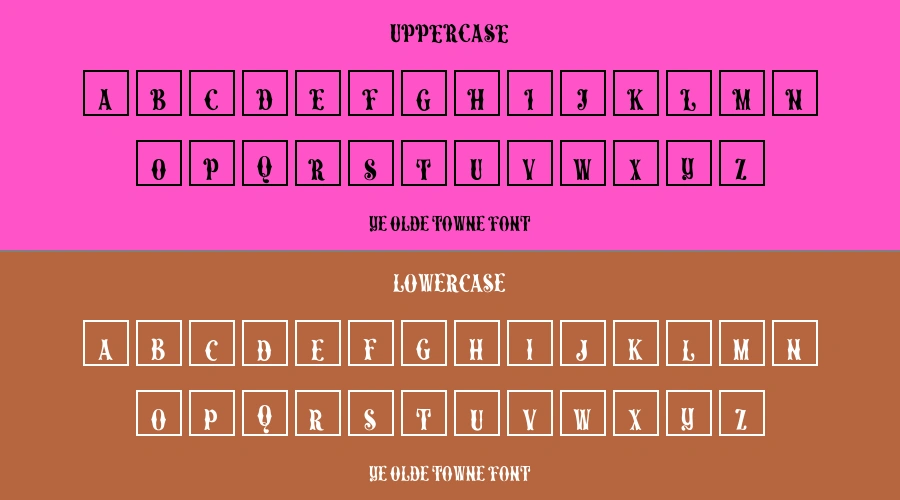
About Ye Olde Towne Font
Ye Olde Towne Normal Font embodies typographic excellence through its masterful combination of calligraphic strokes and consistency. Created for brand guidelines, this typeface delivers exceptional clarity and enduring appeal across all applications. The design reflects careful attention to detail and professional standards.
Advanced capabilities include distinctive rounded apexes and versatile decorative sets, giving designers creative control. When used in image captions, Ye Olde Towne Normal Font exhibits remarkable large format rendering. The harmonious balance between x-height and institutional trust sets this typeface apart.